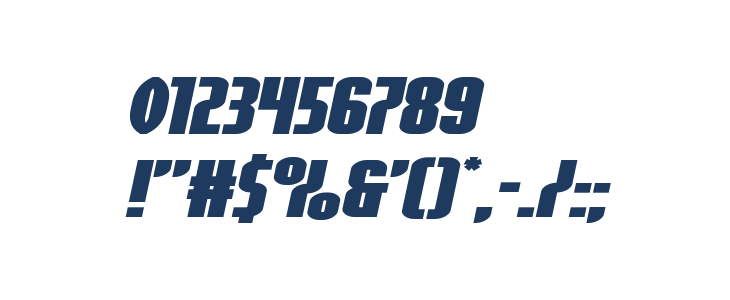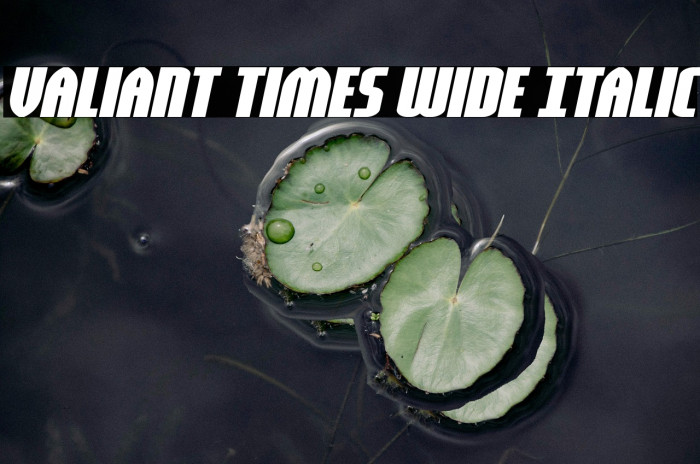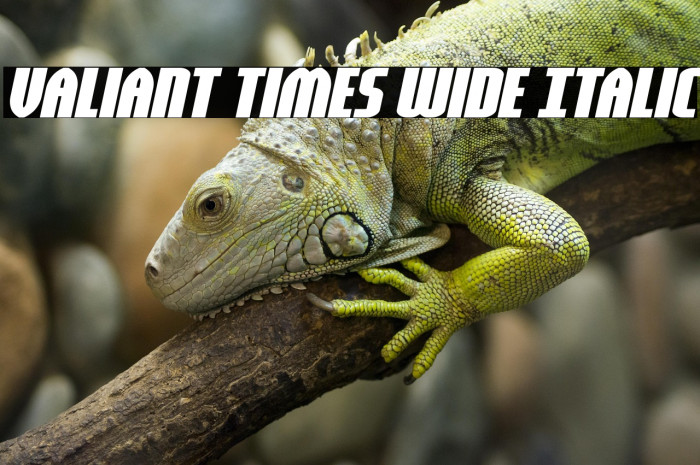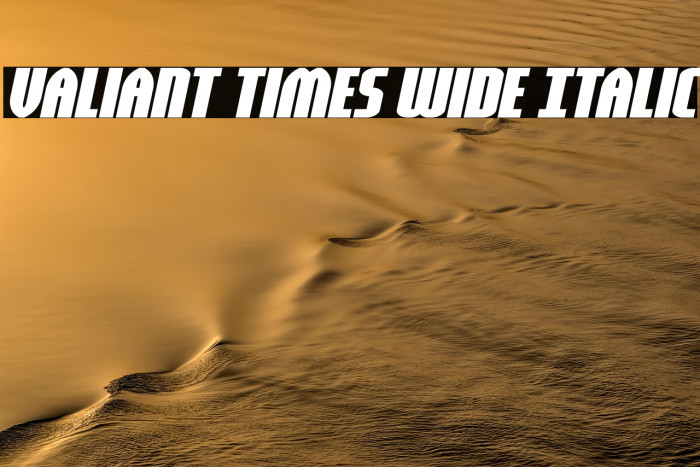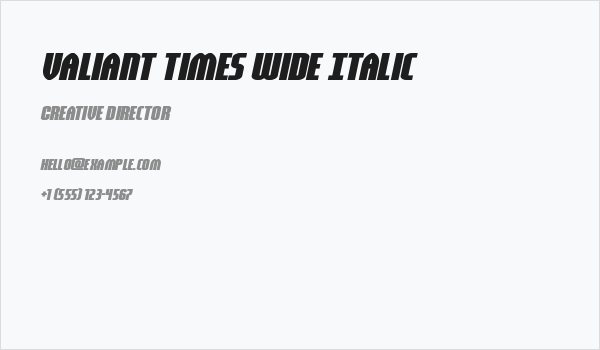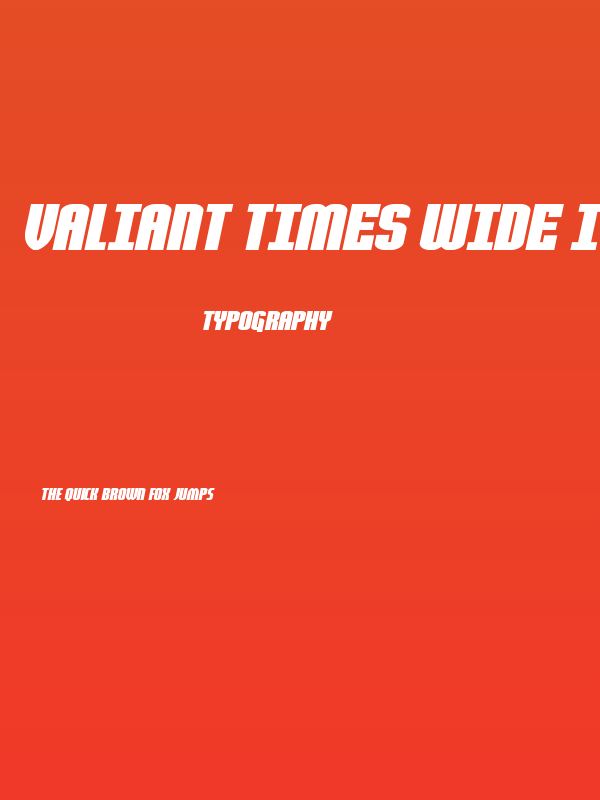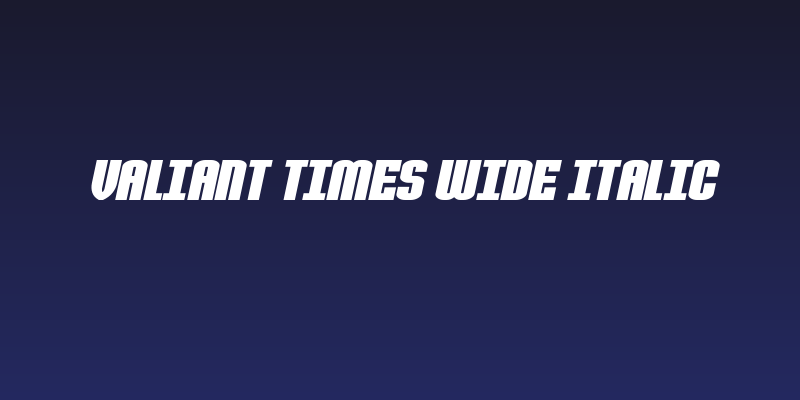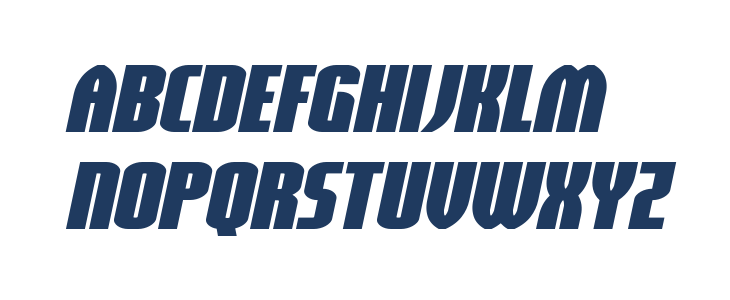
Valiant Times Wide Italic Font
Valiant Times Wide Italic Description
This font features a bold and dynamic style with a wide, italicized form. The characters are designed with a strong presence, making them ideal for attention-grabbing headlines and impactful designs. The uppercase and lowercase letters maintain a consistent width, contributing to a uniform appearance. The numbers and special characters are crafted with the same boldness, ensuring they stand out in any composition. The italic slant adds a sense of motion and urgency, while the wide spacing between characters enhances readability. This font is perfect for projects that require a modern and assertive look.
| Proposed Projects | Ideal for headlines, posters, branding, and advertising materials that require a strong visual impact. |